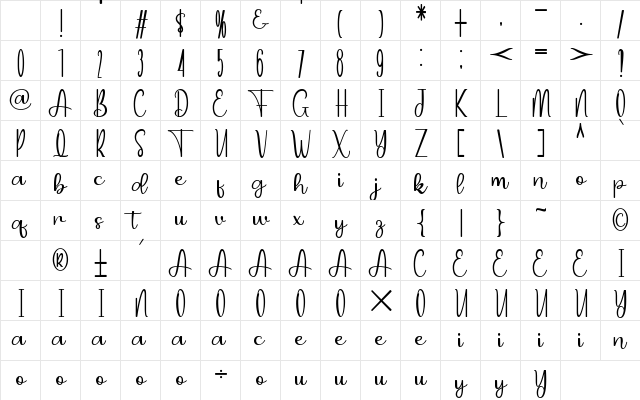
Complete Magdalena Regular glyph index. Displaying only characters natively supported by Magdalena Regular font.
Magdalena is a composed and adaptable typeface that performs quietly and consistently across a wide range of design contexts.